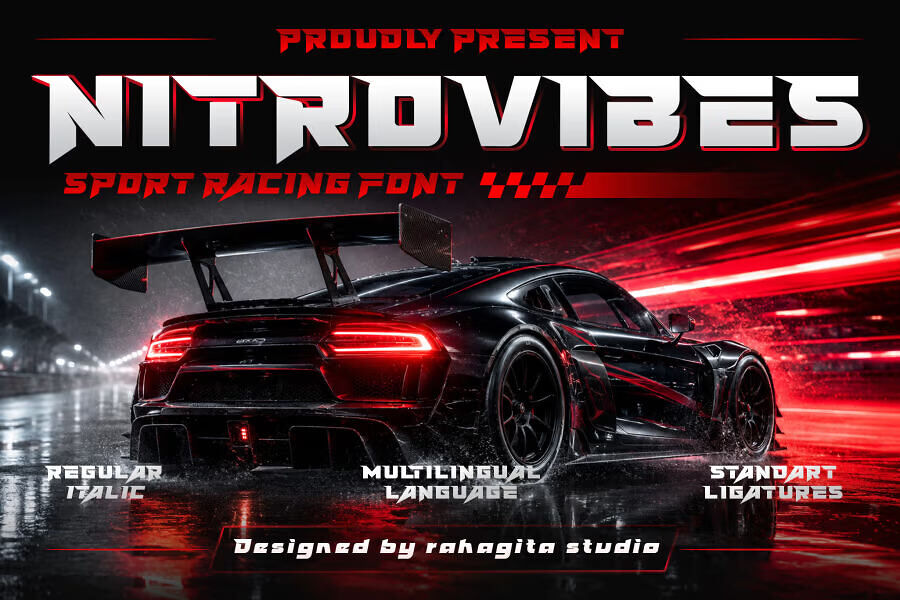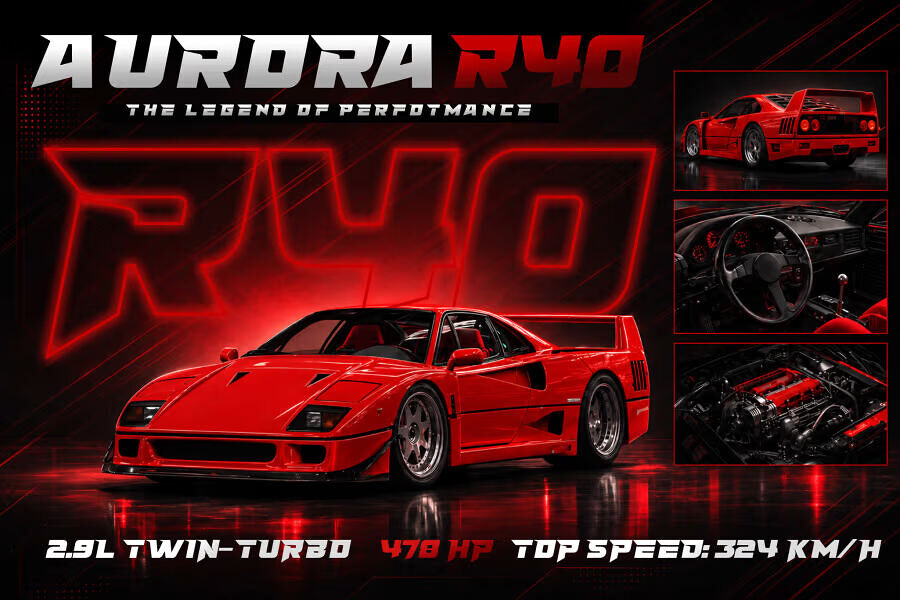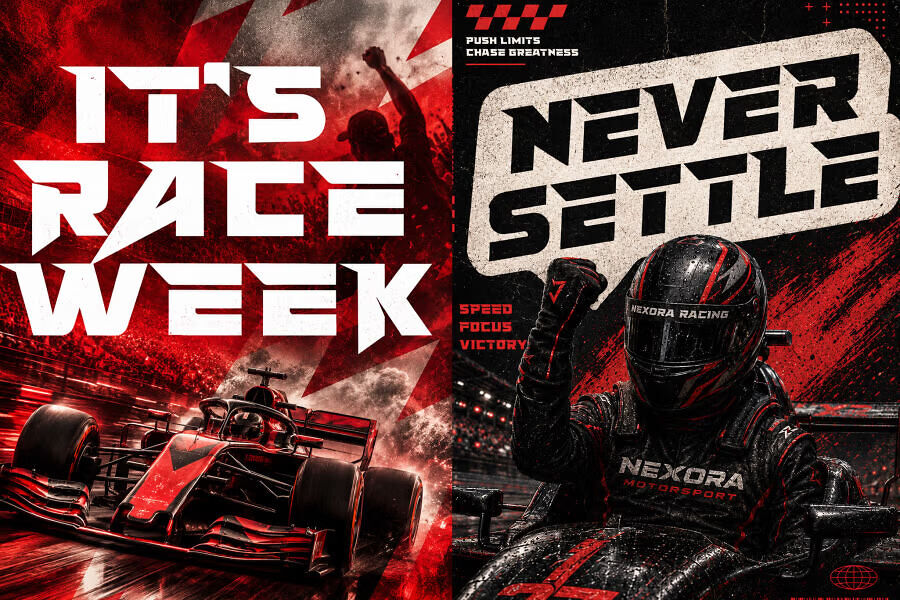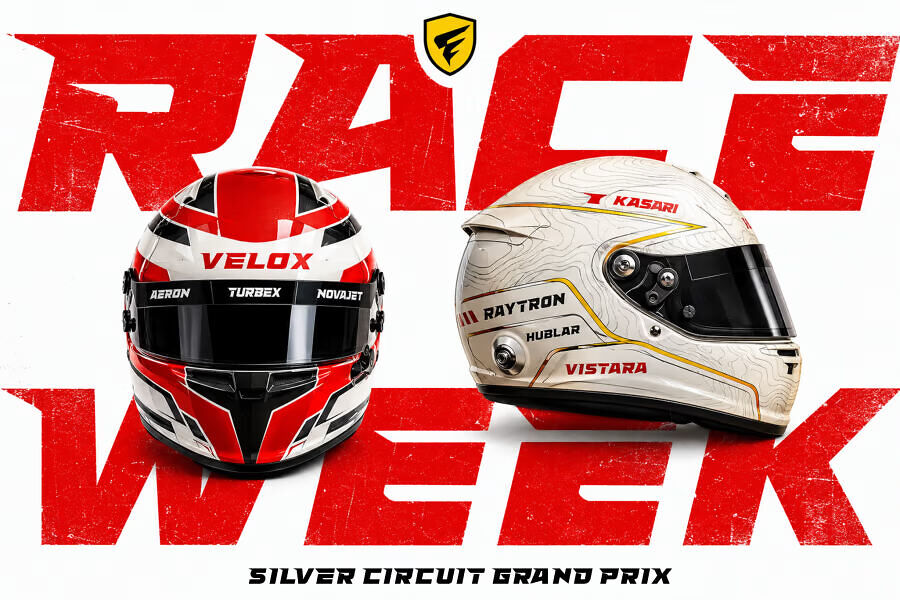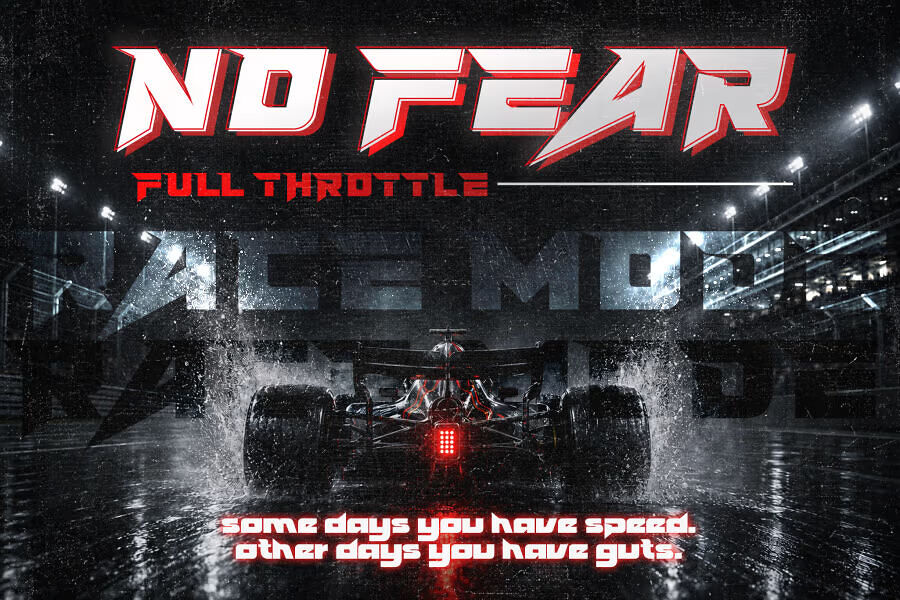
Nitrovibes Font
Nitrovibes is an aggressive display font designed to capture the energy of racing, motorsports, gaming, and esports. Its bold, high-speed style makes it ideal for sports branding, automotive designs, jerseys, posters, logos, and action-focused projects.
With Regular and Italic styles, Nitrovibes delivers a powerful visual presence that helps headlines and graphics stand out with speed, motion, and intensity.